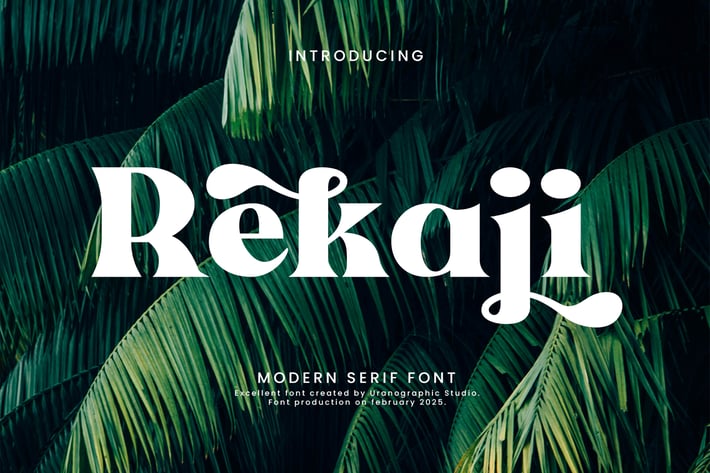
Rekaji Font
Uranographic
Introducing our new product the name is Rekaji. Serif Fonts. This font is perfectly suited for a wide variety of projects, such as stationery, logo, wedding, typography quotes, magazine or book cover, website header, branding, packaging design, and more. Also, related branding or editorial design displays both masculine and feminine qualities.